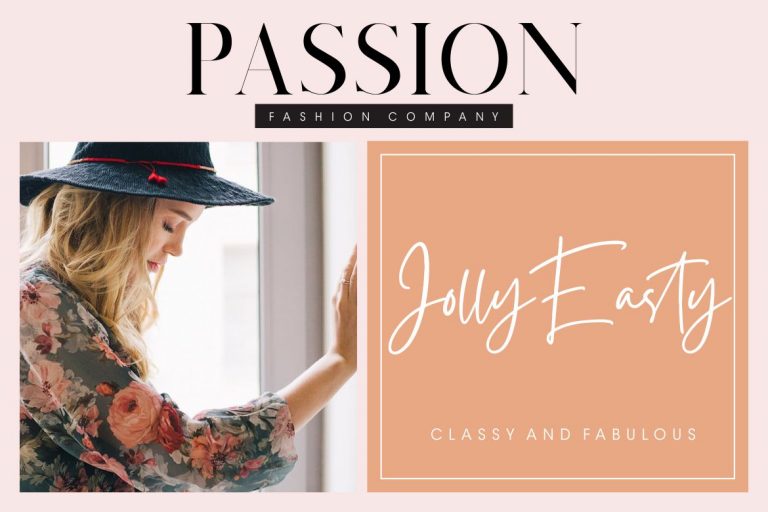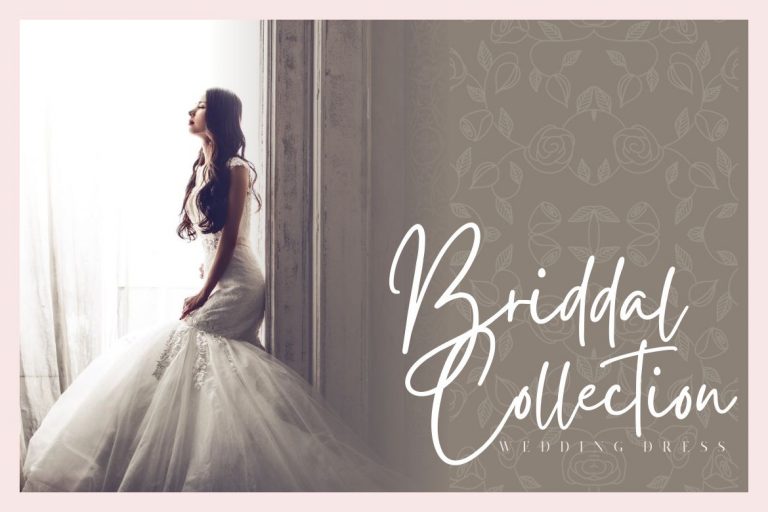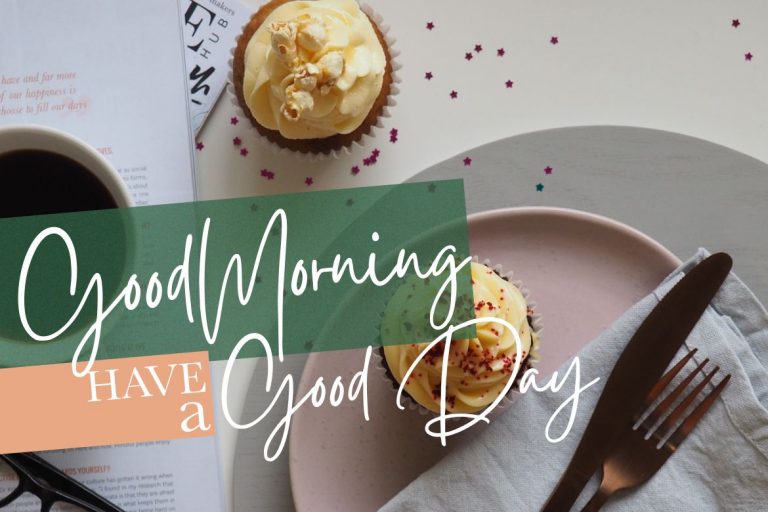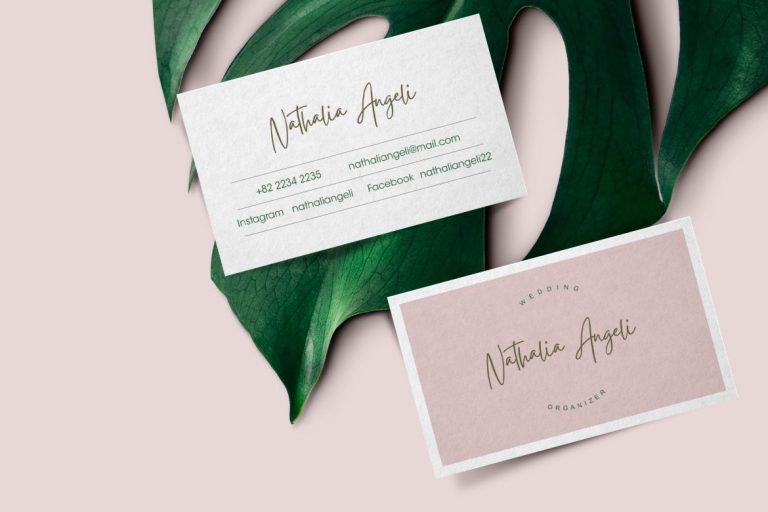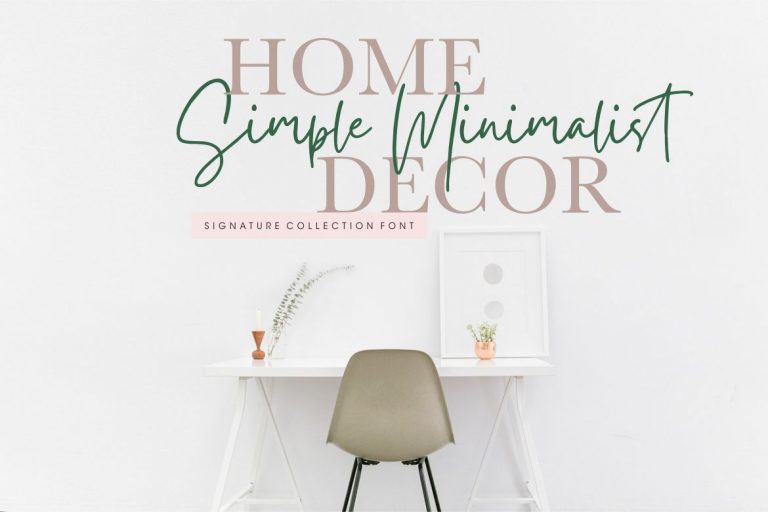
Gistesy Signature Collection
Gistesy Signature Collection is signature collection font with natural movement make looks elegant, classy and beauty for your latest project.
Gistesy Signature Collection is perfect for branding projects, logo, wedding designs, social media posts, advertisements, product packaging, product designs, label, photography, watermark, invitation, stationery and any projects that need handwriting taste.